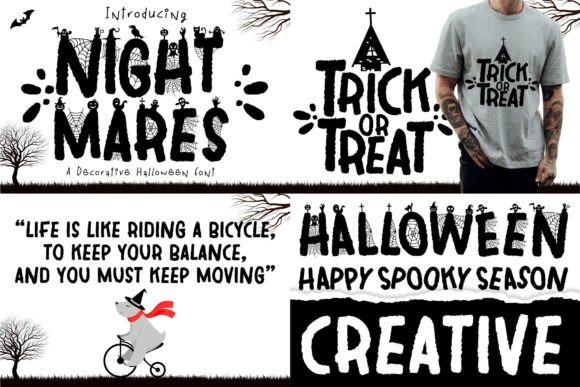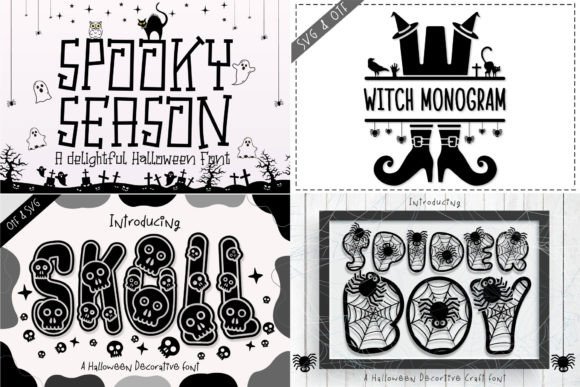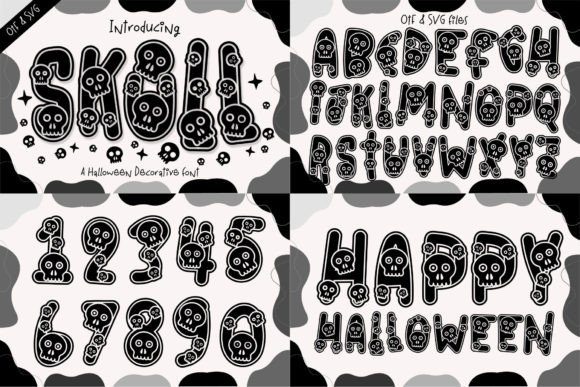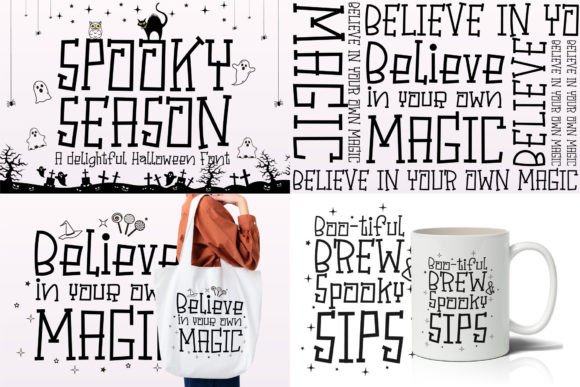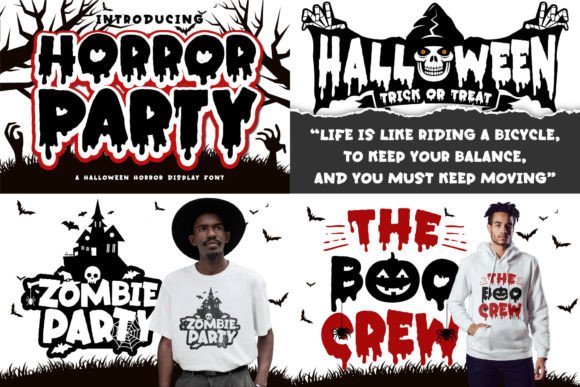
Unleash Your Creativity this Halloween with the Happy Halloween Bundle Font
Halloween is just around the corner, and what better way to get into the spooky spirit than with a font that’s designed specifically for DIY Halloween craft projects? Look no further than the Happy Halloween Bundle Font! This playful and spooky font is perfect for adding a touch of Halloween magic to your designs, and we’re excited to dive into the details of what makes it so special.
What is the Happy Halloween Bundle Font?
The Happy Halloween Bundle Font is a carefully crafted font designed to capture the essence of Halloween. With its unique blend of playful and spooky elements, this font is sure to add a touch of whimsy to your Halloween projects. Whether you’re creating invitations, decorations, or other DIY crafts, this font is the perfect choice for designers and crafters of all skill levels.
Perfect for DIY Halloween Craft Projects
One of the best things about the Happy Halloween Bundle Font is its versatility. This font is designed to be used for a wide range of DIY Halloween craft projects, from invitations and decorations to party favors and more. With the Happy Halloween Bundle Font, you can create a cohesive look across all of your Halloween projects, ensuring that your designs are both festive and fun.
Add a Playful and Spooky Touch to Your Designs
The Happy Halloween Bundle Font is all about adding a playful and spooky touch to your designs. With its bold and quirky lettering, this font is sure to add a touch of Halloween magic to your projects. Whether you’re creating designs for kids or adults, this font is sure to delight. Imagine creating Halloween invitations with a playful font that sets the tone for a spooktacular party, or designing decorations with a font that adds a touch of eerie elegance.
Craft Invitations, Decorations, and More with Ease
Transform Your Projects into Spooktacular Delights
The Happy Halloween Bundle Font is more than just a font – it’s a way to transform your projects into spooktacular delights that will enchant both kids and adults alike. Imagine creating Halloween designs that are so good, they’ll make people scream with delight! With this font, you can create designs that are both festive and fun, ensuring that your Halloween projects are the talk of the town.
Why Choose the Happy Halloween Bundle Font?
So why choose the Happy Halloween Bundle Font for your Halloween projects? Here are just a few reasons why this font stands out:
- Unique and playful design: The Happy Halloween Bundle Font features a unique and playful design that’s sure to add a touch of Halloween magic to your projects.
- Versatile: This font is perfect for a wide range of DIY Halloween craft projects, from invitations and decorations to party favors and more.
- Easy to use: With its user-friendly design, the Happy Halloween Bundle Font is easy to work with and requires no special design experience.
- Spooky and fun: This font is sure to add a touch of spooky fun to your designs, making it perfect for Halloween projects.
Get Ready to Unleash Your Creativity this Halloween